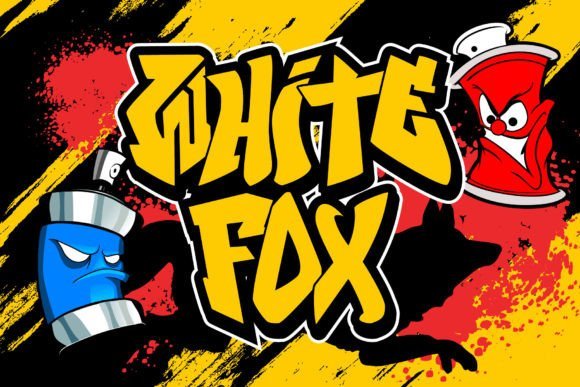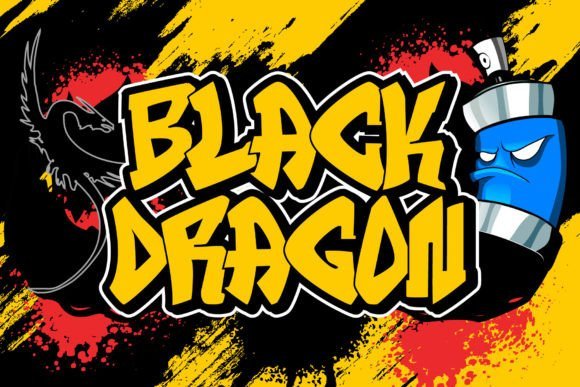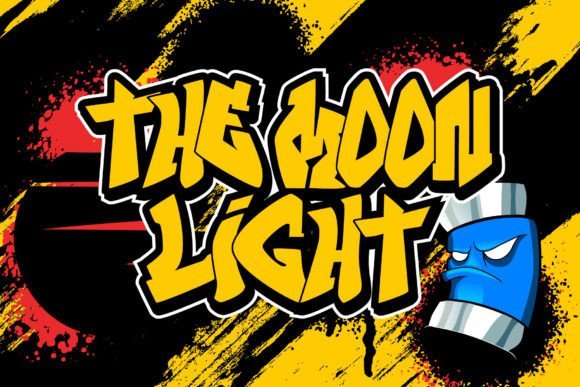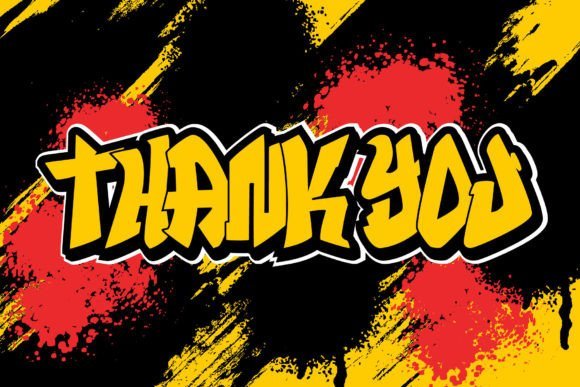
Retro Graffiti Font
Kido Studio
Retro Graffiti is a bold and chunky lettered display font that playfully evokes the iconic look and style of graffiti. Add this font to your urban and casual creations and you will love the outcome.